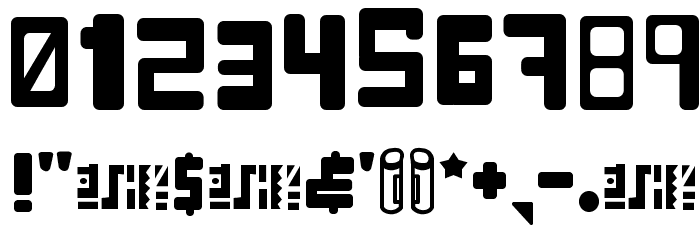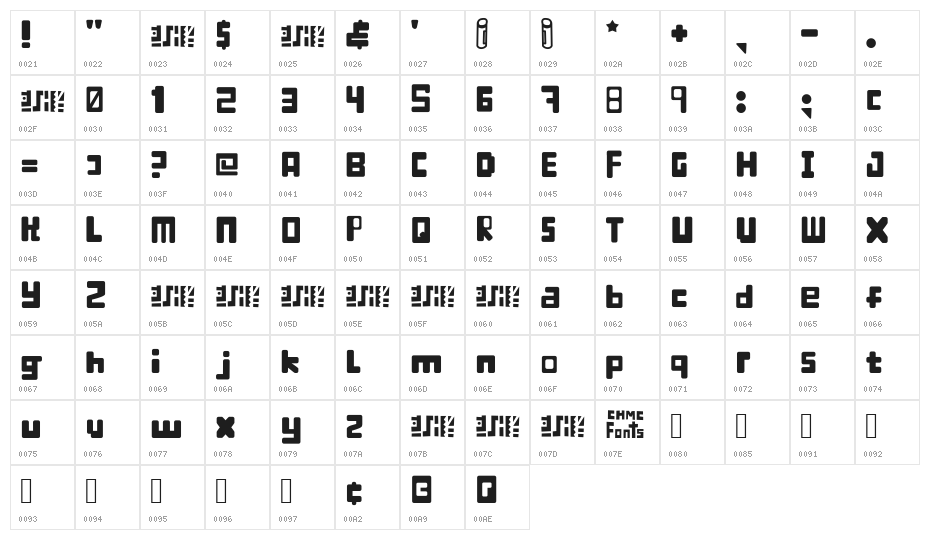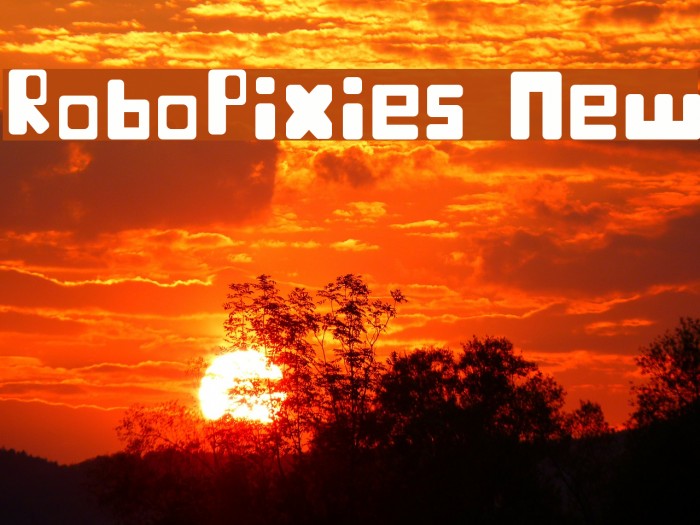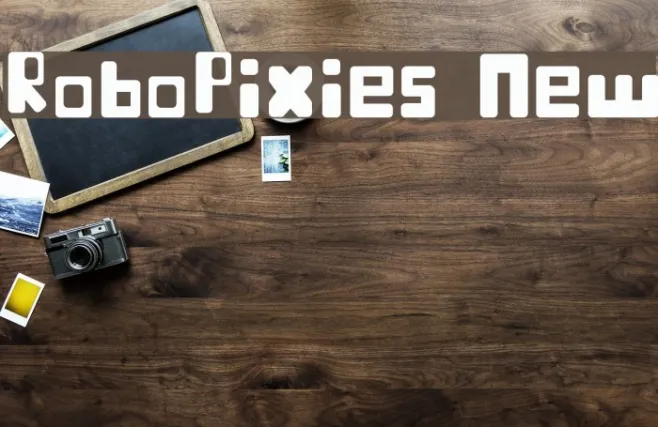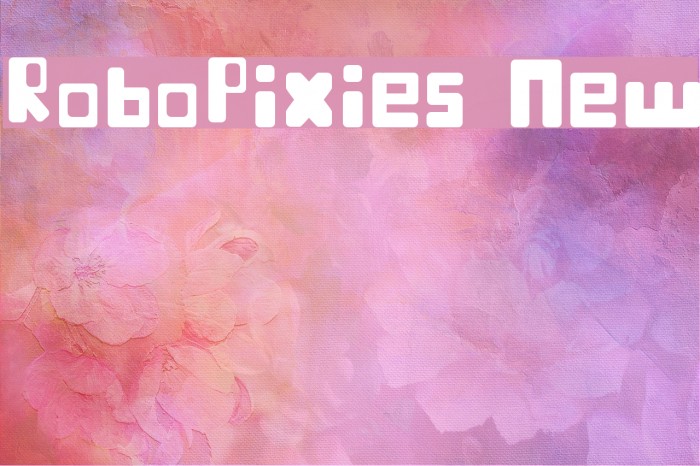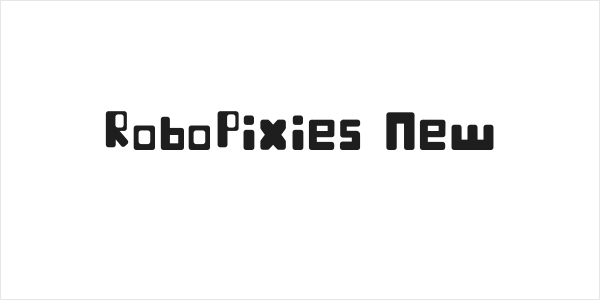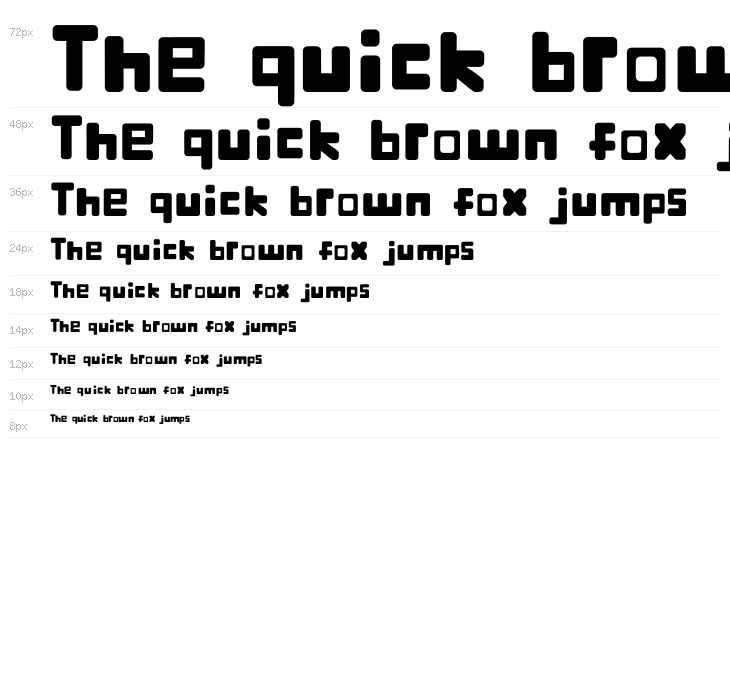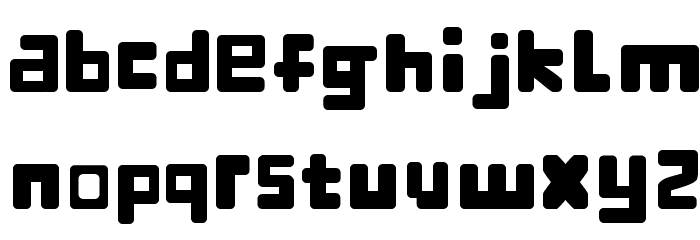
RoboPixies New Font
RoboPixies New Description
This font features a bold and playful design with a distinctly modern and futuristic aesthetic. The characters are blocky and geometric, with rounded edges that soften the overall appearance. The uppercase and lowercase letters maintain a consistent width, creating a uniform look across the typeface. The numbers and special characters follow the same design principles, ensuring a cohesive style throughout. The font's unique personality makes it stand out, while its readability remains intact due to the clear and distinct shapes of each character.
| Proposed Projects | Ideal for tech-related branding, video game titles, posters, and futuristic-themed designs. |